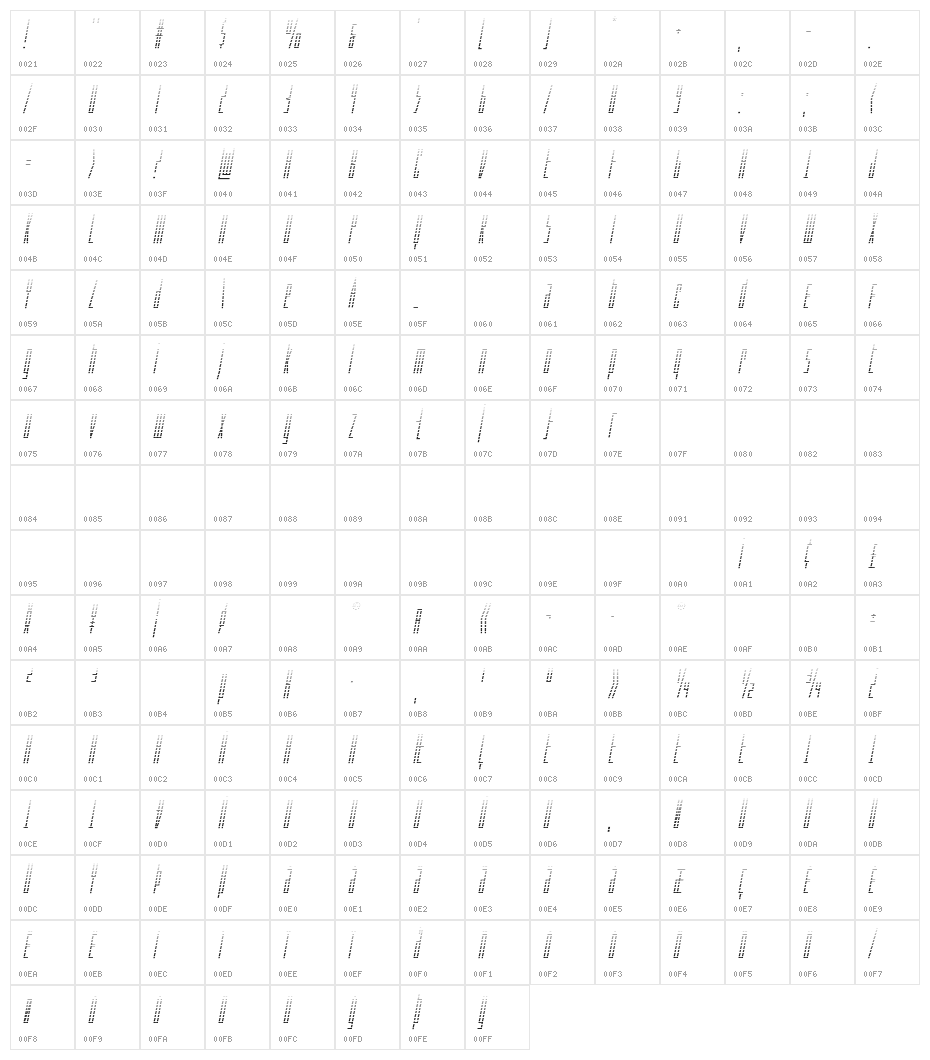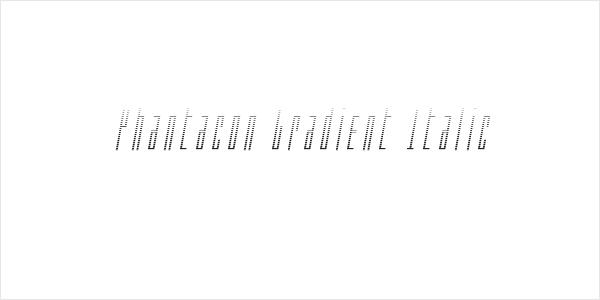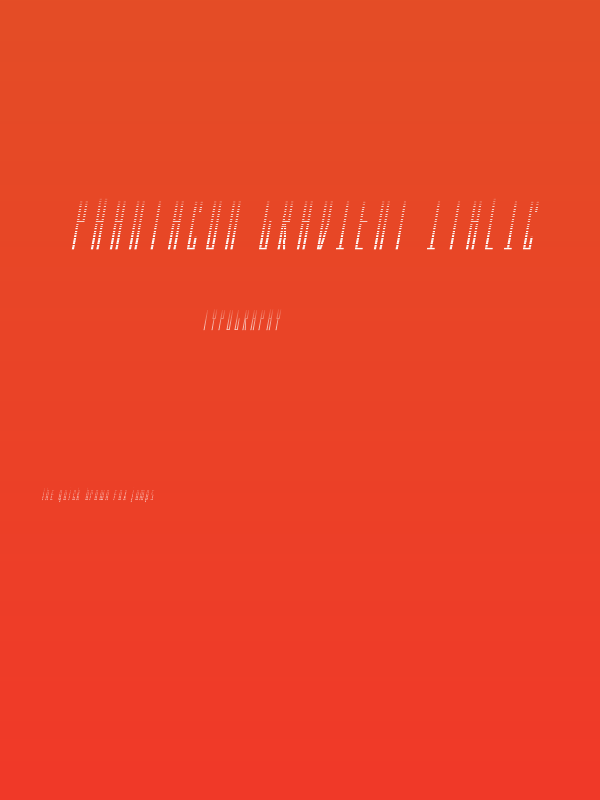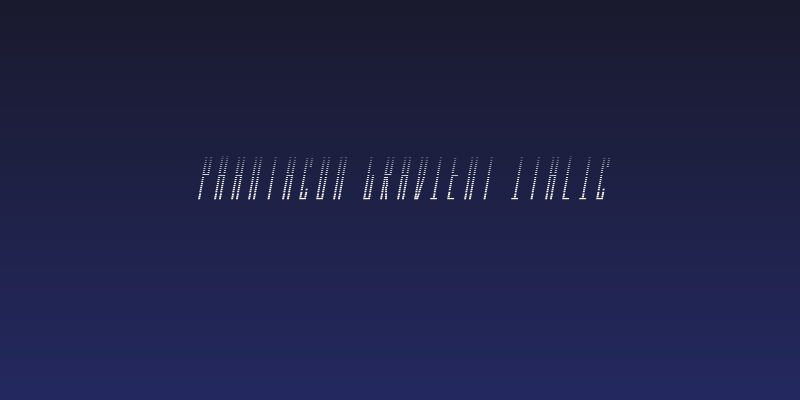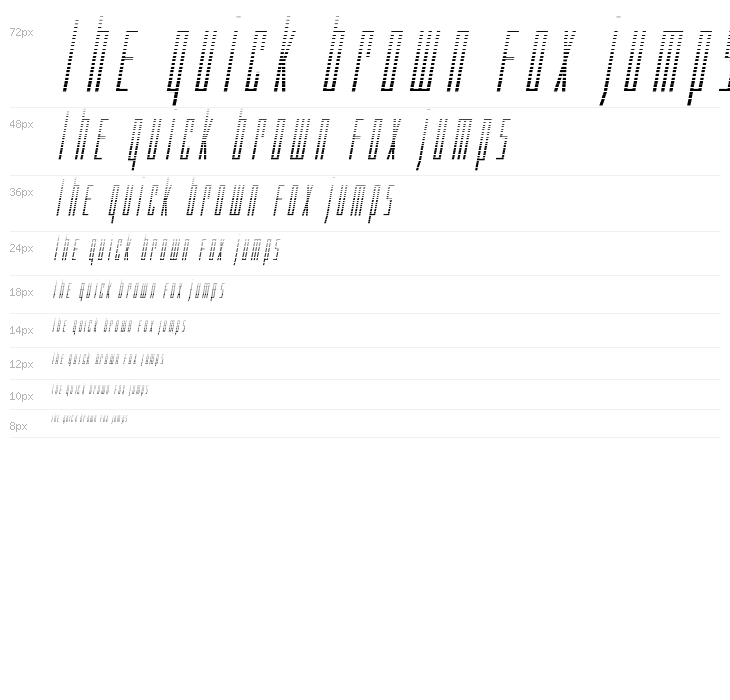
Phantacon Gradient Italic Font
Phantacon Gradient Italic Description
This font features a modern, italicized design with a unique gradient effect that gives each character a dynamic, futuristic appearance. The letters are elongated and slightly condensed, with a distinct slant that enhances the sense of motion. The gradient pattern within each character adds depth and visual interest, making it stand out in any design. The uppercase and lowercase letters maintain a consistent style, while the numerals and special characters complement the overall aesthetic. This font is ideal for projects that require a bold, eye-catching look.